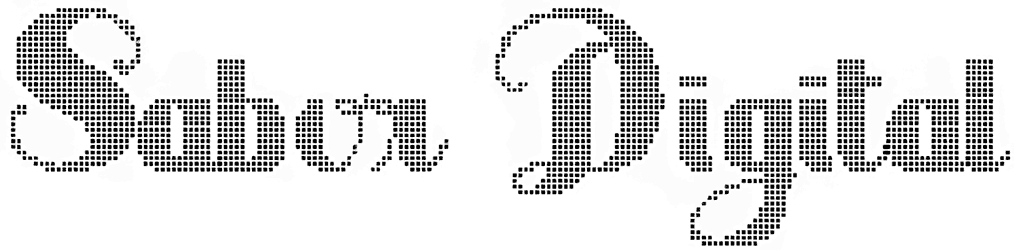
Sabor Digital Font
Having a pixel font such as Sabor Digital that comes with a unique and eye-grabbing style would be totally tempting for any graphic designer who craves to create high-end artwork like billboards, web pages, the user interface of applications, digital brochures, or social media posts.
This digital font has the real ability to take all of your graphic content to the next level by giving a sense of jauntiness, tenderness, fierceness, or modernity.
Designed by: Intellecta Design